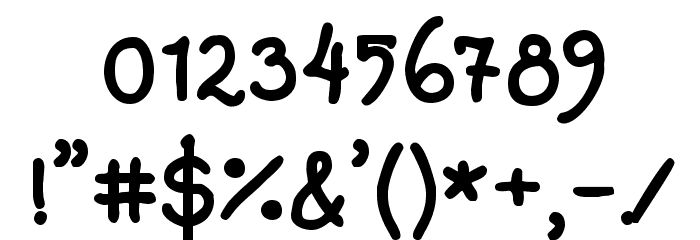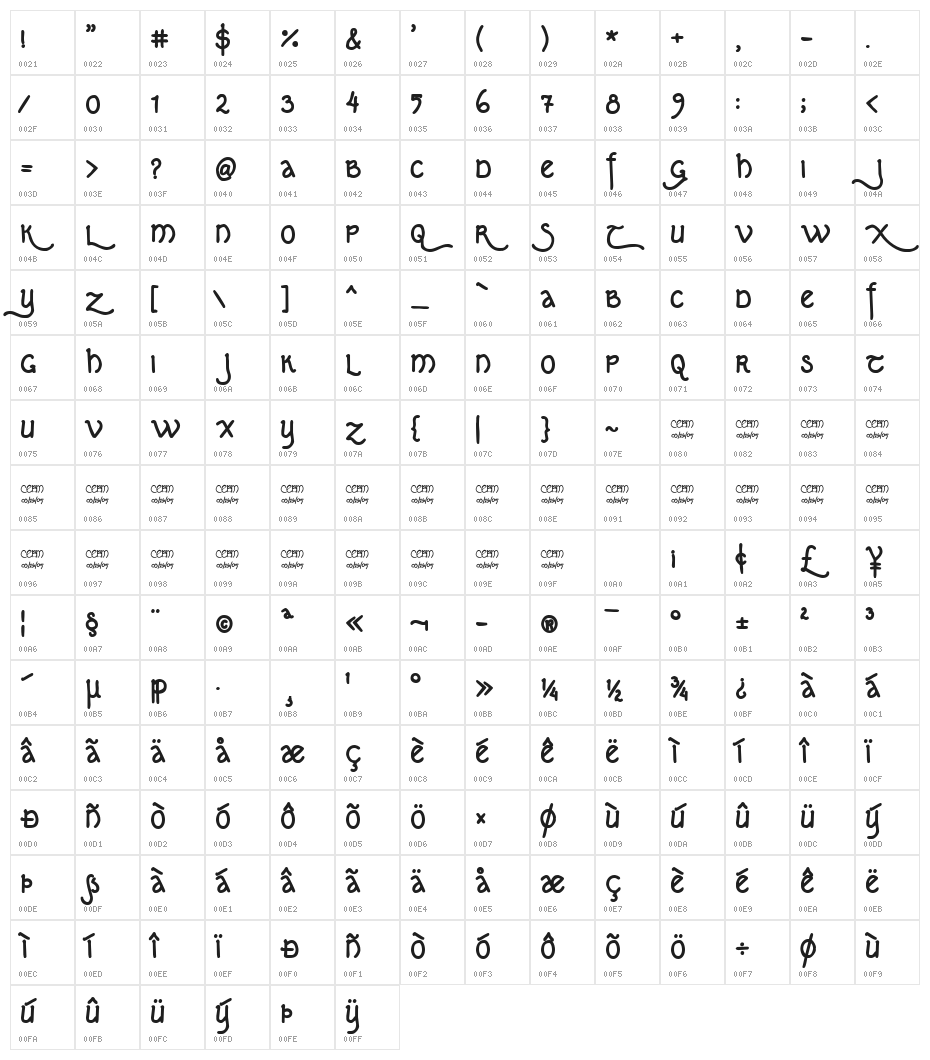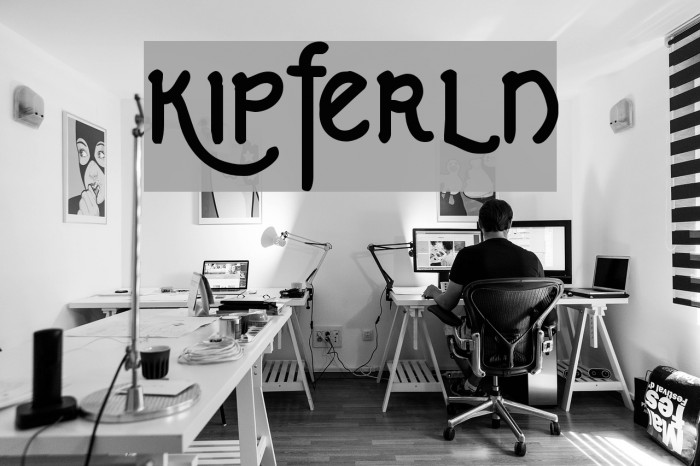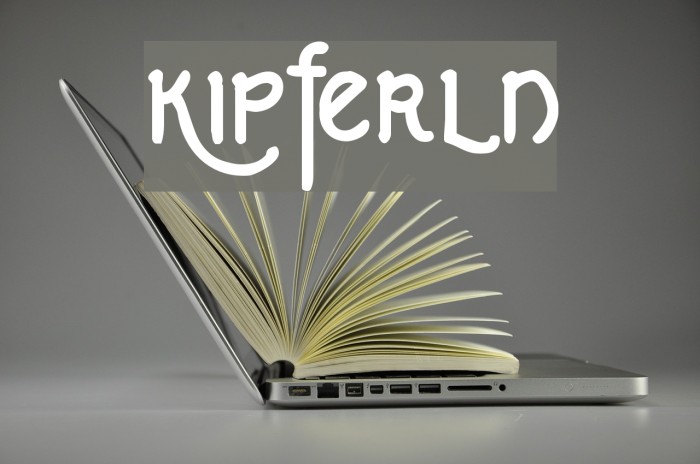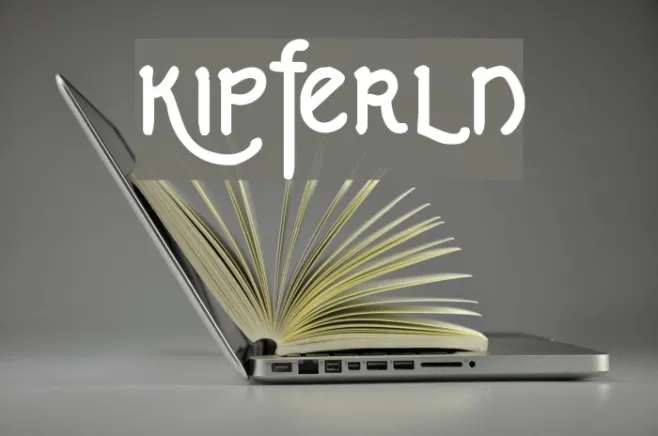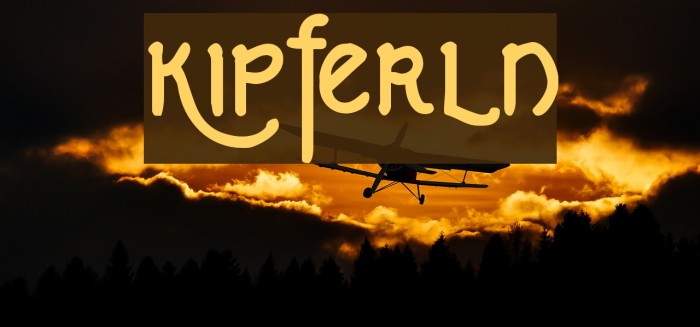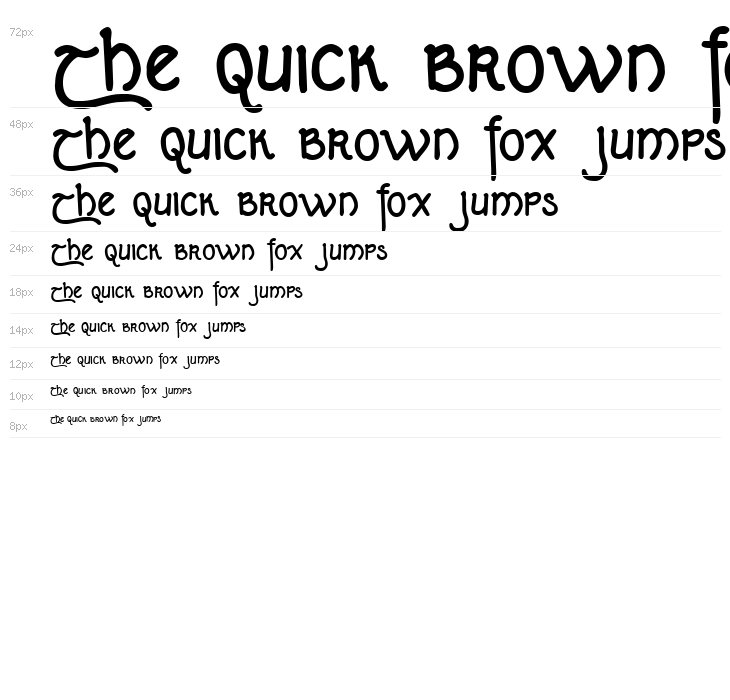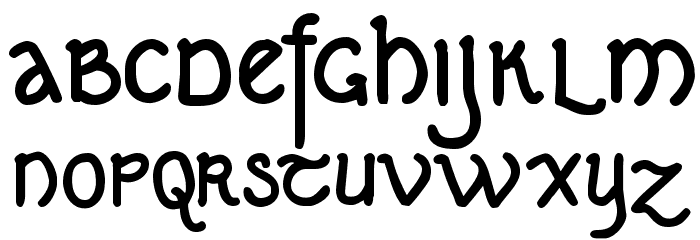
Kipferln Font
Kipferln Description
This font features a whimsical and decorative style with a playful and artistic flair. The uppercase letters have a unique blend of curves and sharp edges, creating a dynamic and eye-catching appearance. The lowercase letters maintain a consistent style, with some characters featuring extended tails and loops that add to the font's charm. The numerals are bold and clear, ensuring readability while maintaining the font's overall artistic theme. Special characters are designed with a similar flair, making them suitable for creative and expressive projects. The font's distinct personality makes it ideal for projects that require a touch of creativity and uniqueness.
| Proposed Projects | Ideal for greeting cards, invitations, artistic posters, and branding materials that require a creative touch. |